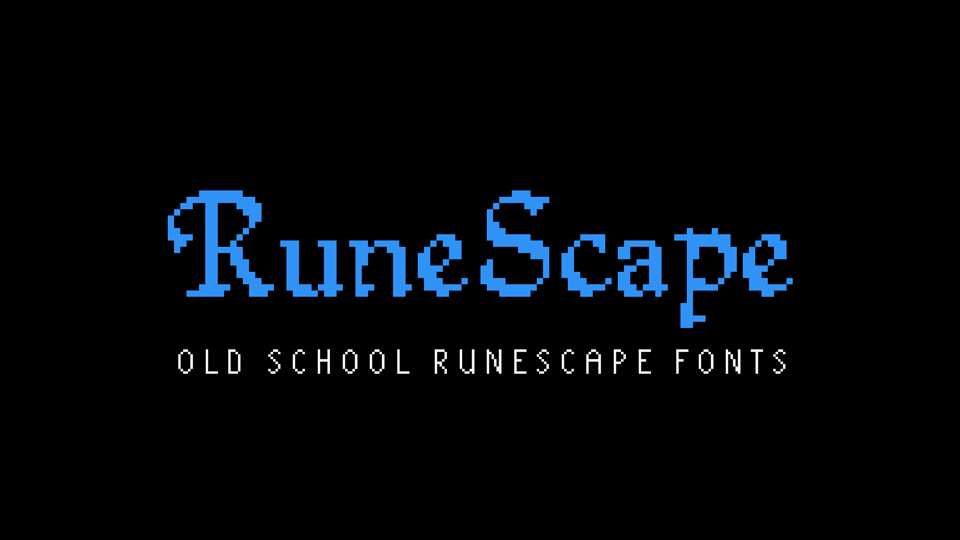
Download Runescape typeface, an old School pixel font family in 10 styles, including Plain, Bold, Quill, Fairy, Barbarian Assault, Surok with all 192 characters exactly as appears in-game.
Designer: RuneStar